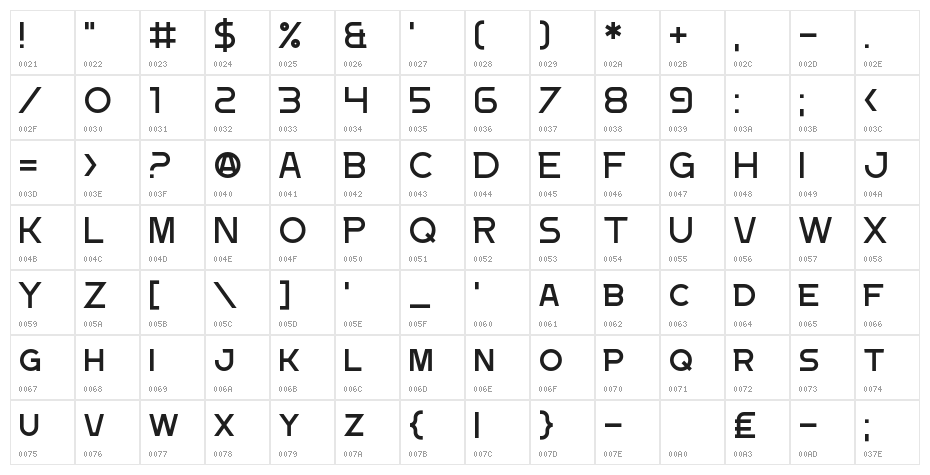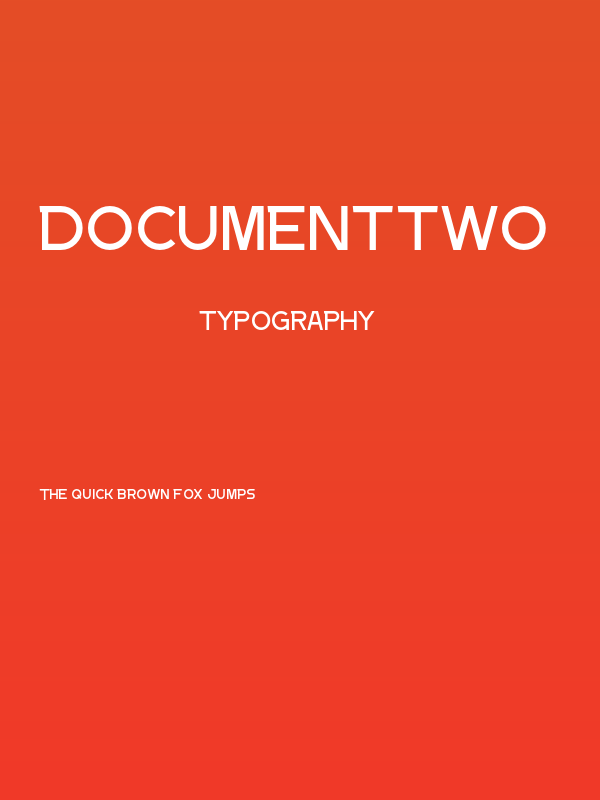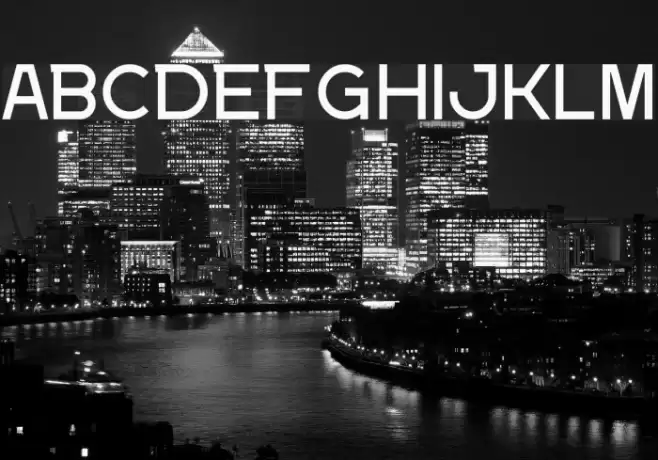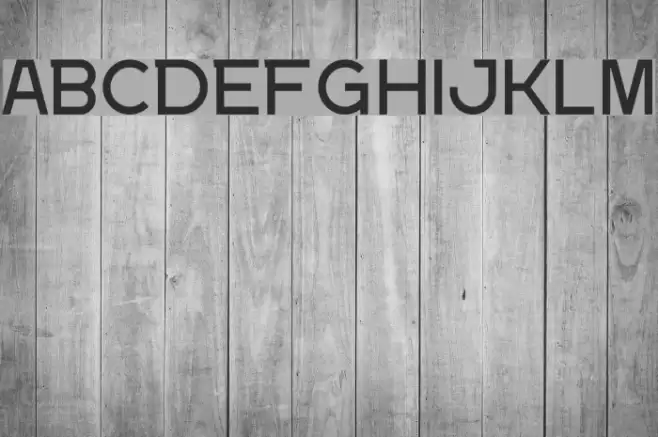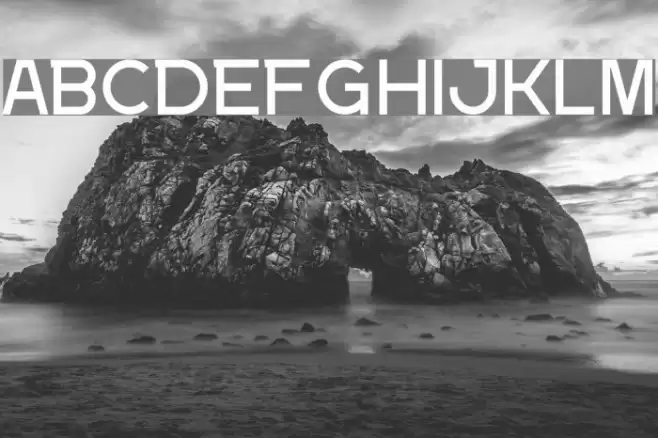
DocumentTwo Font
DocumentTwo Description
This font features a bold and modern sans-serif style with clean lines and a geometric structure. The uppercase and lowercase letters are consistent in width, providing a uniform appearance. The numerals are distinct and easy to read, making them suitable for various applications. Special characters are included, maintaining the font's cohesive design. The overall look is sleek and contemporary, ideal for projects that require a strong visual impact.
| Proposed Projects | Ideal for branding, advertising, headlines, and digital media projects that require a modern and impactful look. |